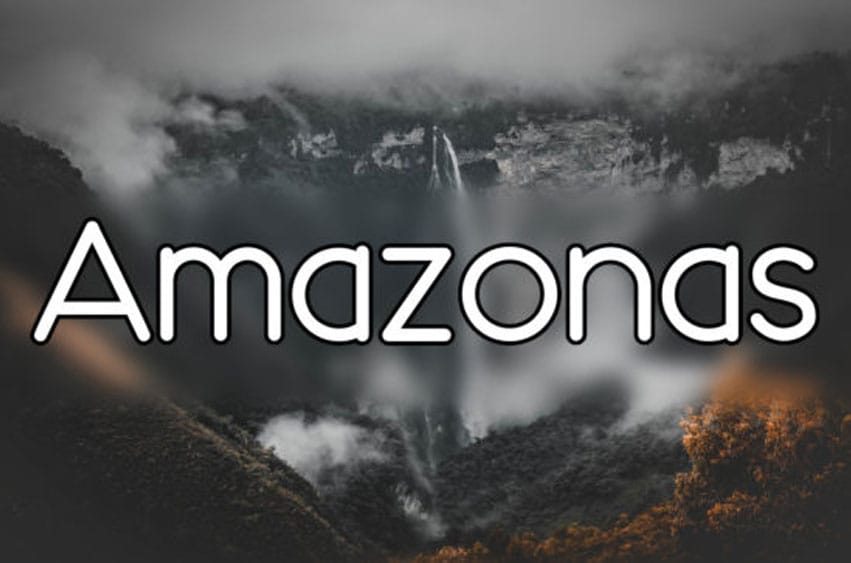
Amazonas Font is a nice and clean sans serif font with a very good first impression, ideal for any use case.
It has medium weight, clear lines, and is perfect for any crafting idea.